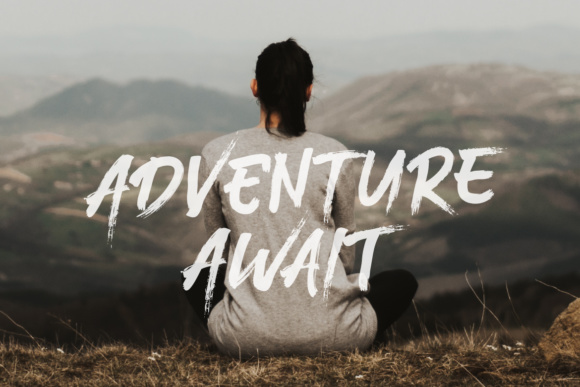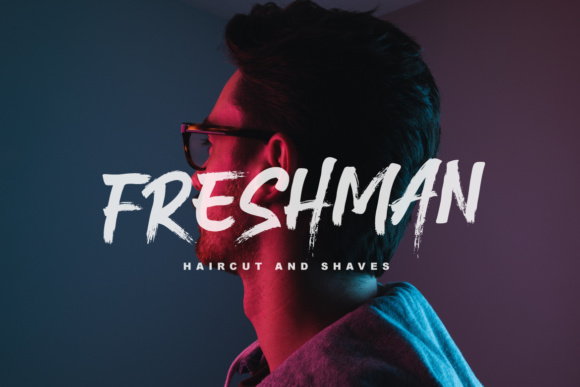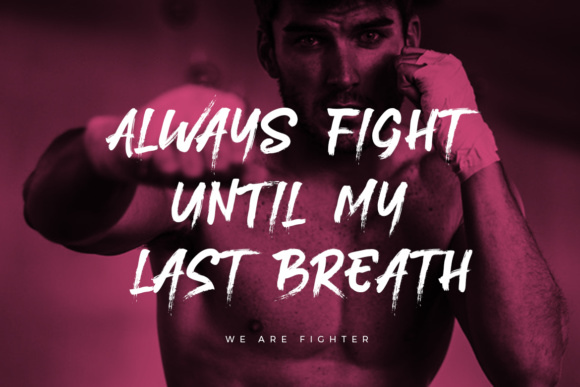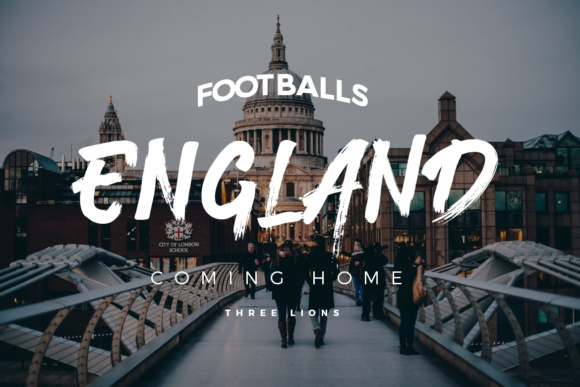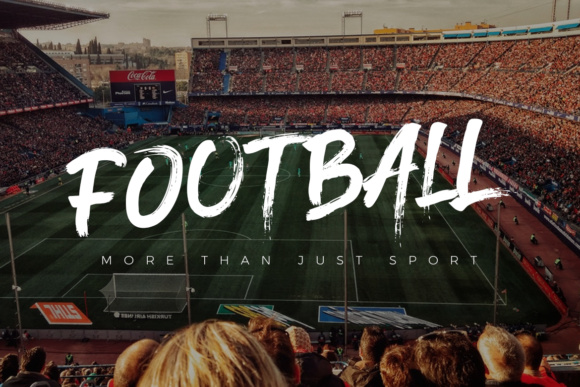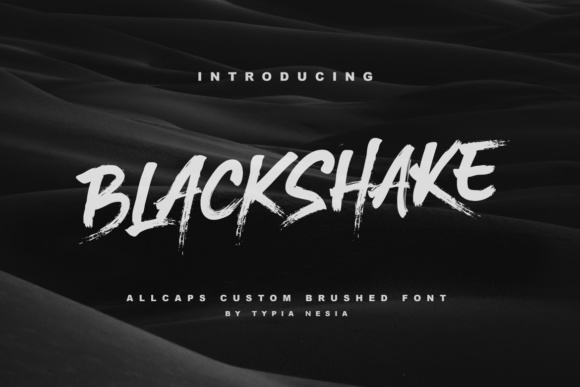
Unleash Your Creativity with BlackShake Font: A Stylish and Versatile Display Font
Are you tired of using the same old fonts in your designs? Look no further than BlackShake, a cool and textured dry brushed font that’s sure to add a stylish punch to your projects. With its unique blend of gritty texture and smooth lines, BlackShake is the perfect display font for designers and crafters looking to make a statement.
What is BlackShake Font?
BlackShake is a dry brushed font that’s designed to give your designs a bold and edgy look. Its textured appearance gives it a rough, hand-crafted feel that’s perfect for adding a touch of personality to your projects. Whether you’re working on a logo, a poster, or a social media graphic, BlackShake is a great choice for making a statement.
Key Features of BlackShake Font
• Textured dry brushed appearance: BlackShake’s unique texture gives it a rough, hand-crafted feel that’s perfect for adding a touch of personality to your designs.
• Versatile and adaptable: BlackShake works well in a wide range of project types, from logos and posters to social media graphics and more.
• Easy to read: Despite its textured appearance, BlackShake is surprisingly easy to read, making it a great choice for headlines and titles.
• High-quality design: BlackShake is designed with high-quality craftsmanship in mind, ensuring that it looks great in any size or resolution.
Uses for BlackShake Font
BlackShake is a versatile font that can be used in a wide range of projects, including:
• Logos and branding: BlackShake’s bold and edgy appearance makes it a great choice for logos and branding materials.
• Posters and flyers: BlackShake’s textured appearance and easy readability make it a great choice for posters and flyers.
• Social media graphics: BlackShake’s stylish appearance makes it a great choice for social media graphics, including Facebook posts, Instagram stories, and more.
• Packaging and labels: BlackShake’s bold and edgy appearance makes it a great choice for packaging and labels.
Tips for Using BlackShake Font
Here are a few tips for getting the most out of BlackShake font:
• Use it sparingly: BlackShake is a bold font, so it’s best to use it sparingly to avoid overwhelming your design.
• Pair it with a simple font: BlackShake’s textured appearance can be overwhelming when paired with another bold font. Try pairing it with a simple font for a more balanced look.
• Experiment with colors: BlackShake looks great in a variety of colors, so don’t be afraid to experiment and find the perfect hue for your design.
BlackShake font is a stylish and versatile display font that’s perfect for designers and crafters looking to add a touch of personality to their projects. With its unique textured appearance and easy readability, BlackShake is a great choice for a wide range of projects, from logos and posters to social media graphics and more. So why settle for a boring, generic font when you can make a statement with BlackShake?
Whether you’re a seasoned designer or just starting out, BlackShake font is a great addition to your font library. So go ahead, give it a try, and see how it can take your designs to the next level!